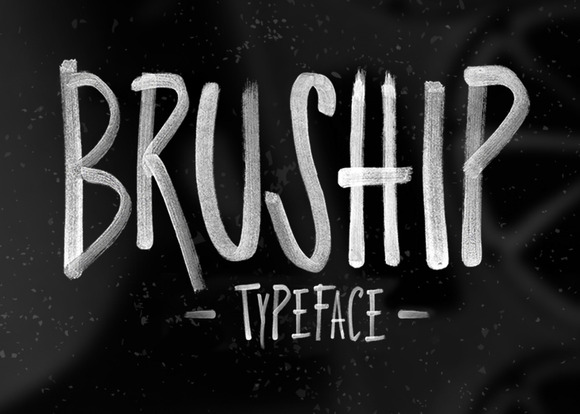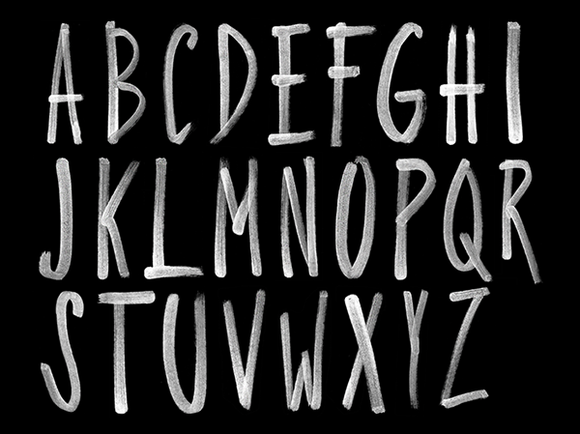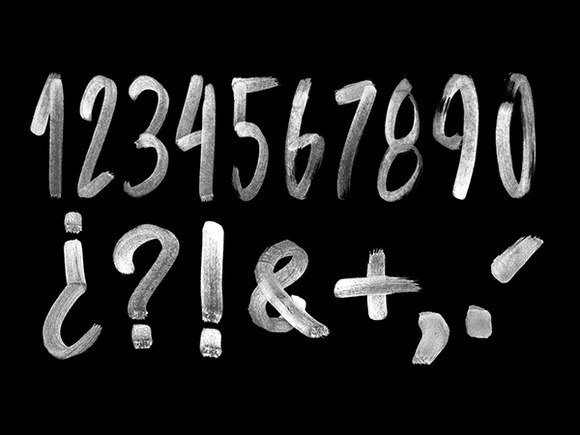
HomeScript FontsBruship Font Script Fonts Bruship Font FacebookXPinterestWhatsApp Bruship Font Poster 2 Bruship Font Poster 3 About Bruship Font Bruship is a handdrawn brush font. Bruship contains basic glyphs and is great for creating headlines. DOWNLOAD ON CREATIVE FABRICAThis font is sold and delivered by Creative Fabrica. Font Canyon may earn a commission if you buy through this link. People also explored Quantum and Time Font Passionate Message Font Festival Font Gratyn Font Planner Font Christmas Holiday Font Collegium Giselle Jakayla Font Thanthen Font 338 0 TagsBruship Font Previous articleZeyk FontNext articleSignature Font LEAVE A REPLY Cancel reply Comment: Please enter your comment! Name:* Please enter your name here Email:* You have entered an incorrect email address! Please enter your email address here Website: Save my name, email, and website in this browser for the next time I comment. Personal Use Free Grillin Personal Use Free Read more about this font Electroharmonix Personal Use Free Read more about this font Bahjera Personal Use Free Read more about this font Vogue Font Personal Use Free Read more about this font BLOG Exploring Font Trends Shaping Communication in the Digital Era Fonts, like all design elements, are subject to trends. They play a crucial role in communicating a brand's personality,... Free vs Paid Fonts: Why Investing in Premium Fonts Is Worth It Top 10 Handwritten Fonts That Elevate Your Designs How to Cut Any Font on Cricut: Convert a Font to SVG (Free)